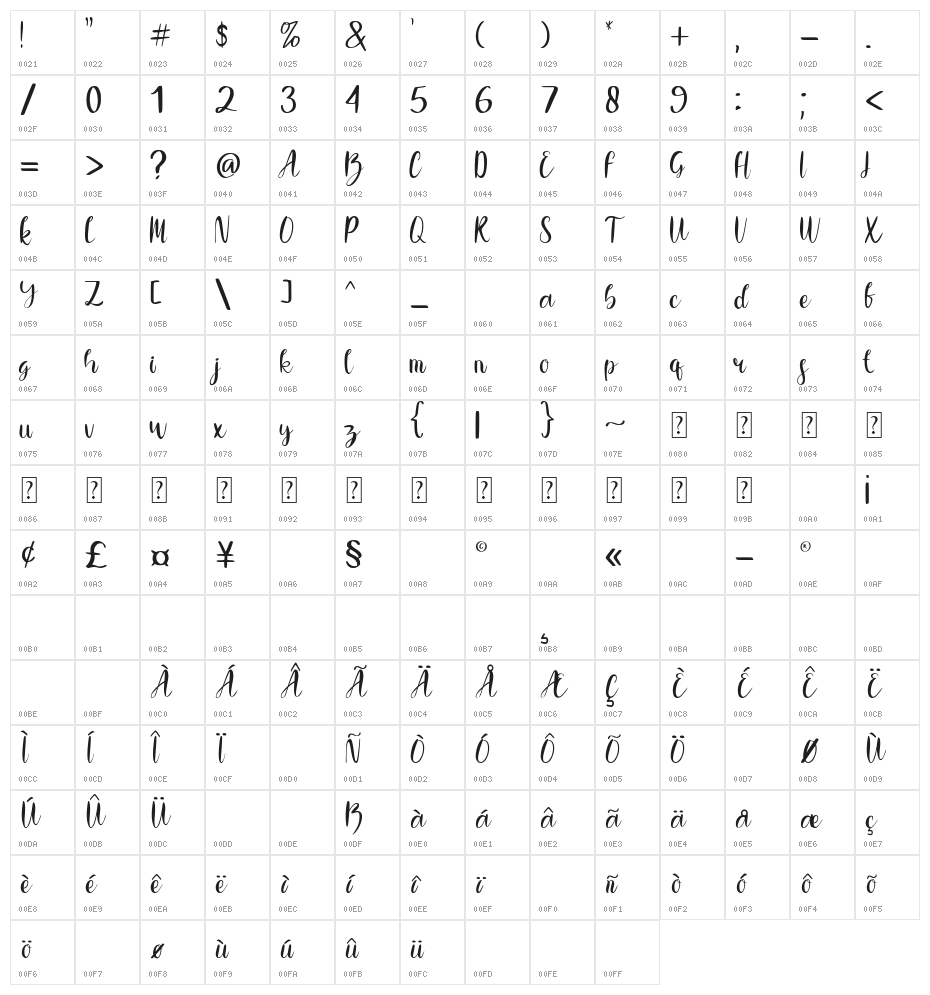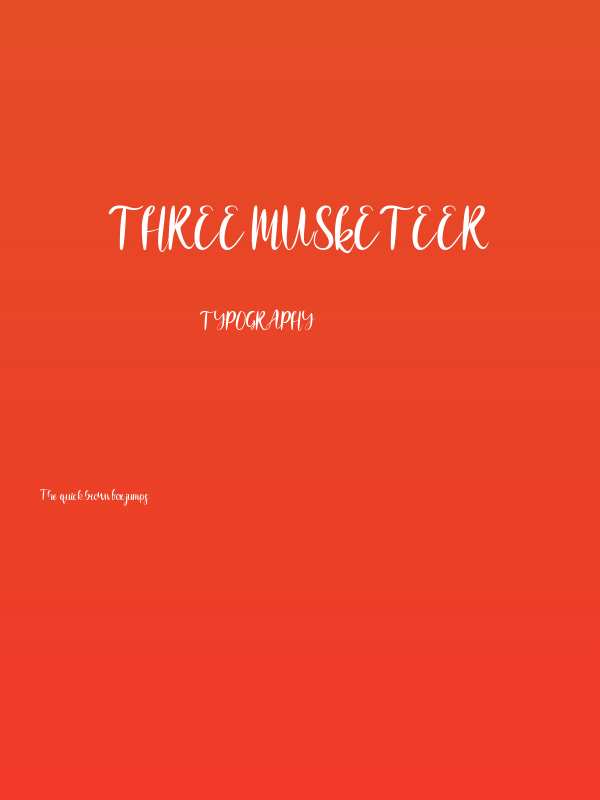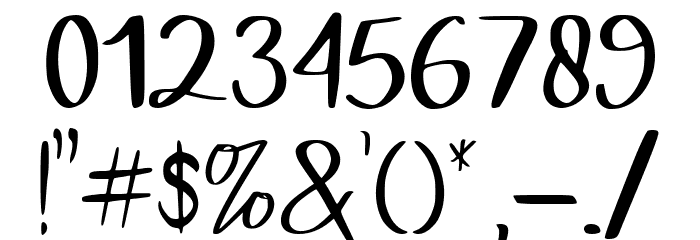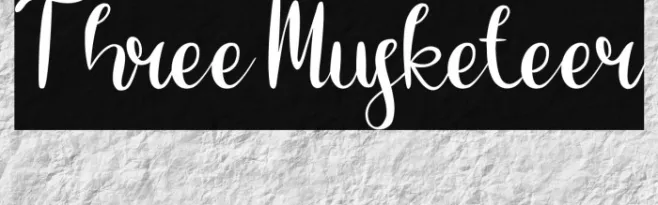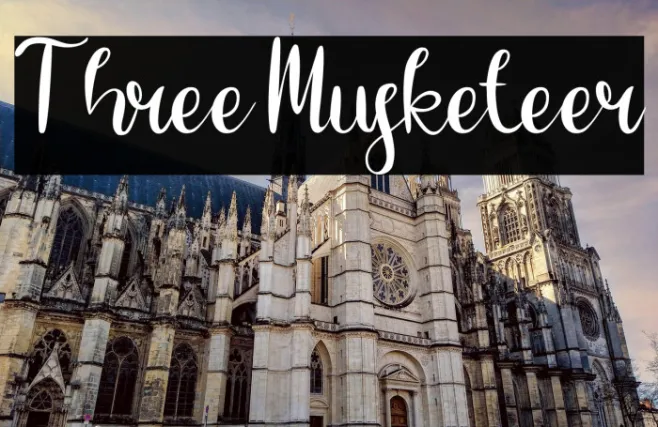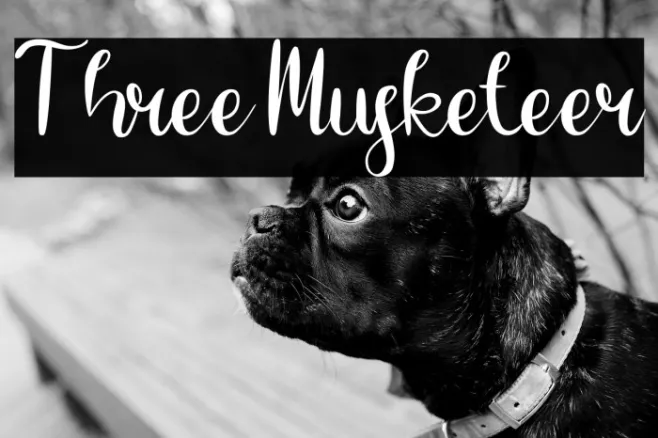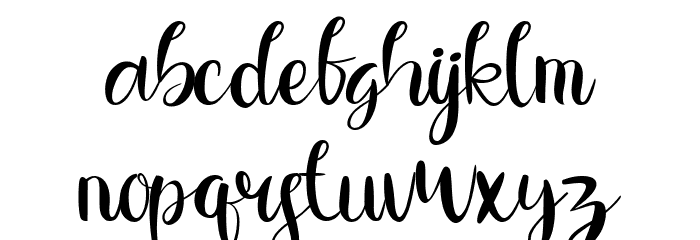
Three Musketeer Font
Three Musketeer Description
This font features a lively and dynamic script style, characterized by its fluid, cursive strokes and elegant loops. The uppercase letters are bold and expressive, with a playful flair that adds a sense of movement and energy. The lowercase letters maintain a consistent flow, complementing the uppercase with their smooth and rounded forms. Numbers and special characters are designed with the same artistic touch, ensuring a cohesive look throughout. The font's overall appearance is both modern and artistic, making it suitable for creative projects that require a personal and handcrafted feel.